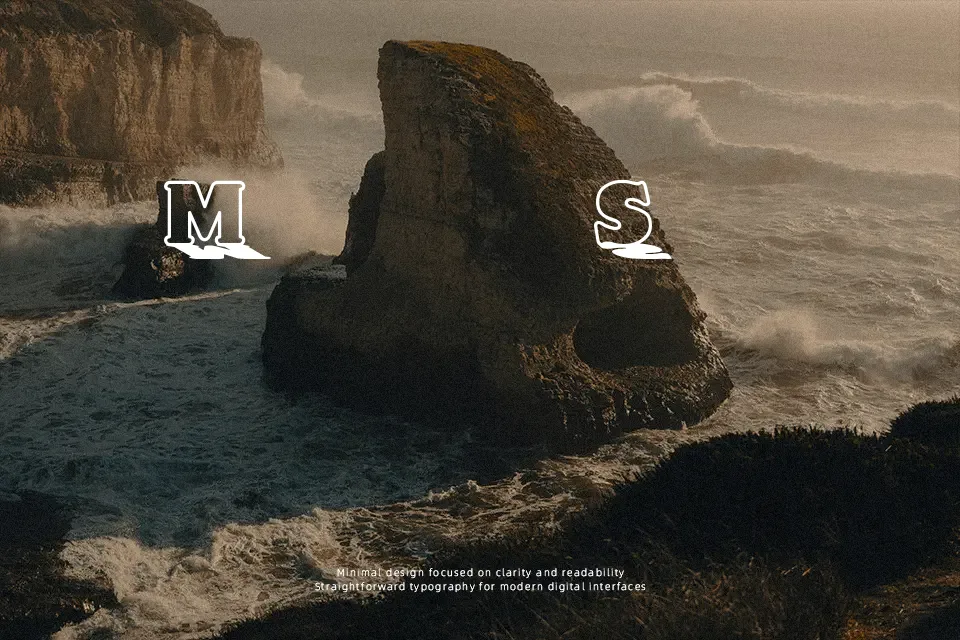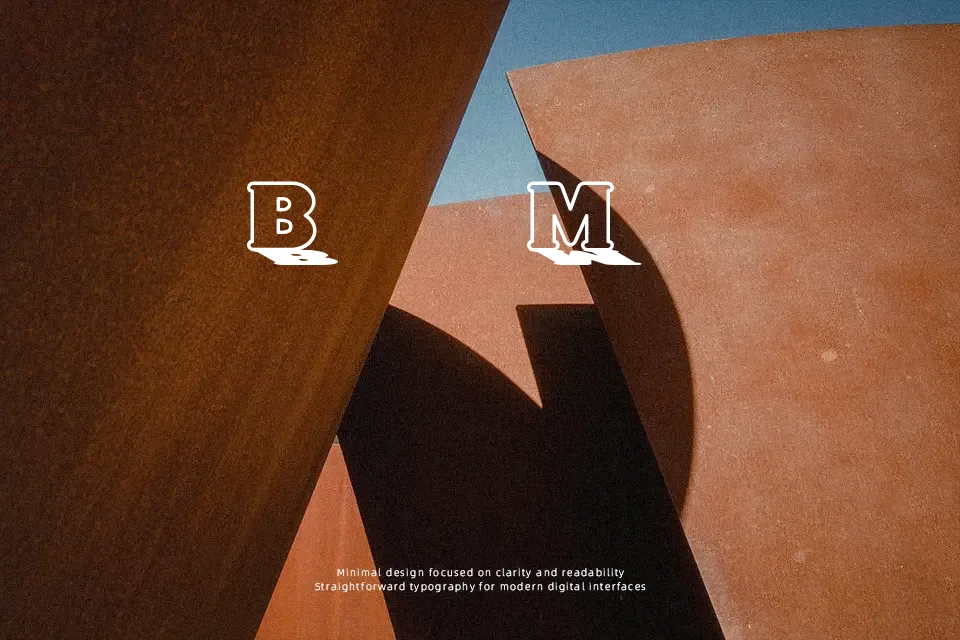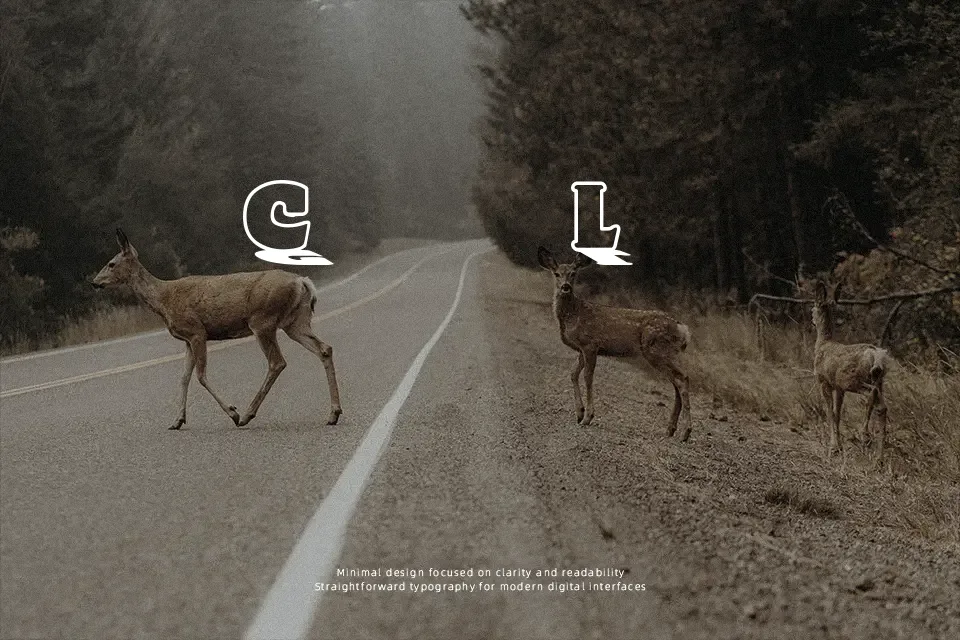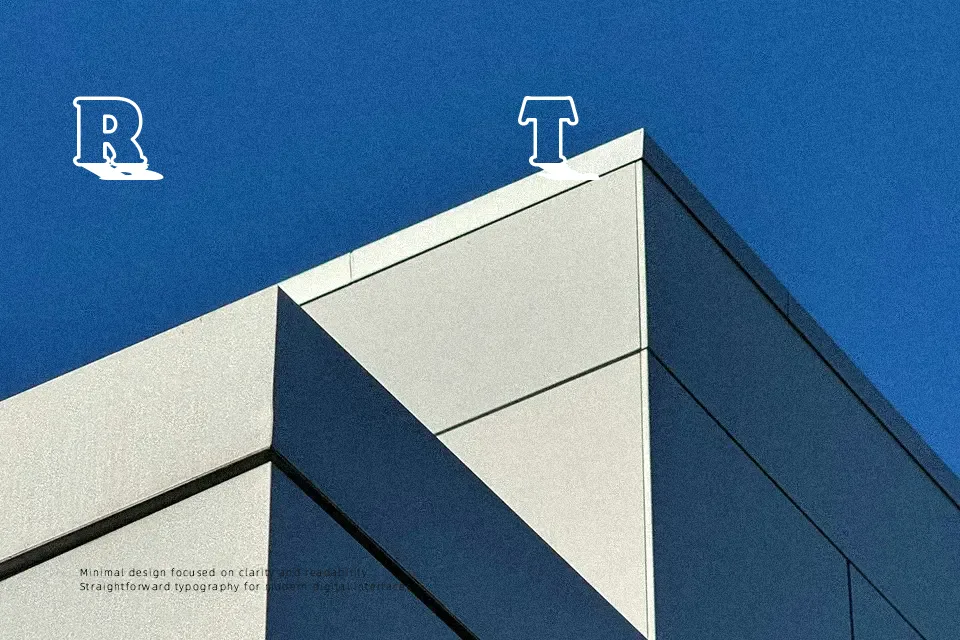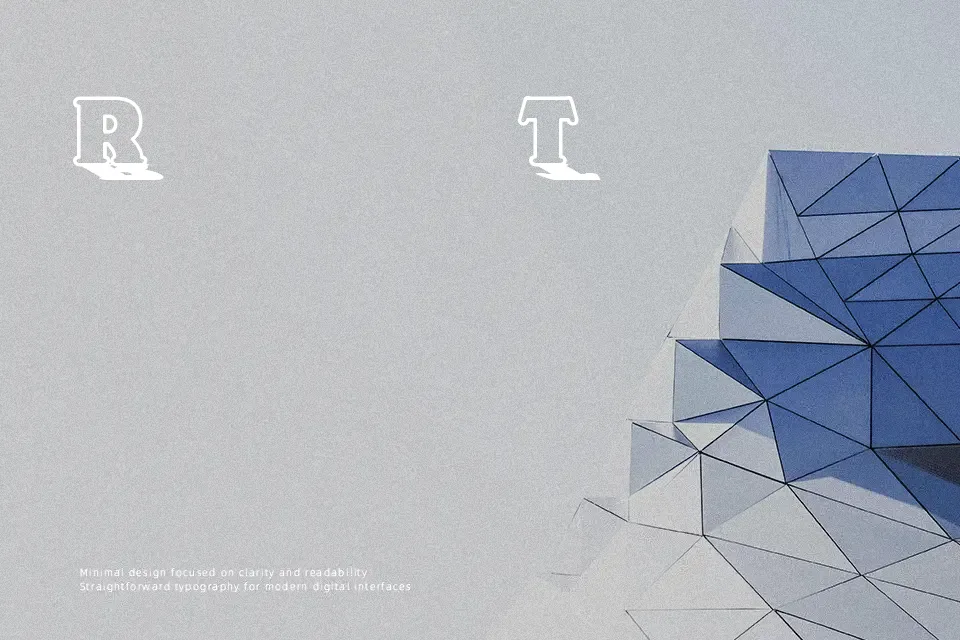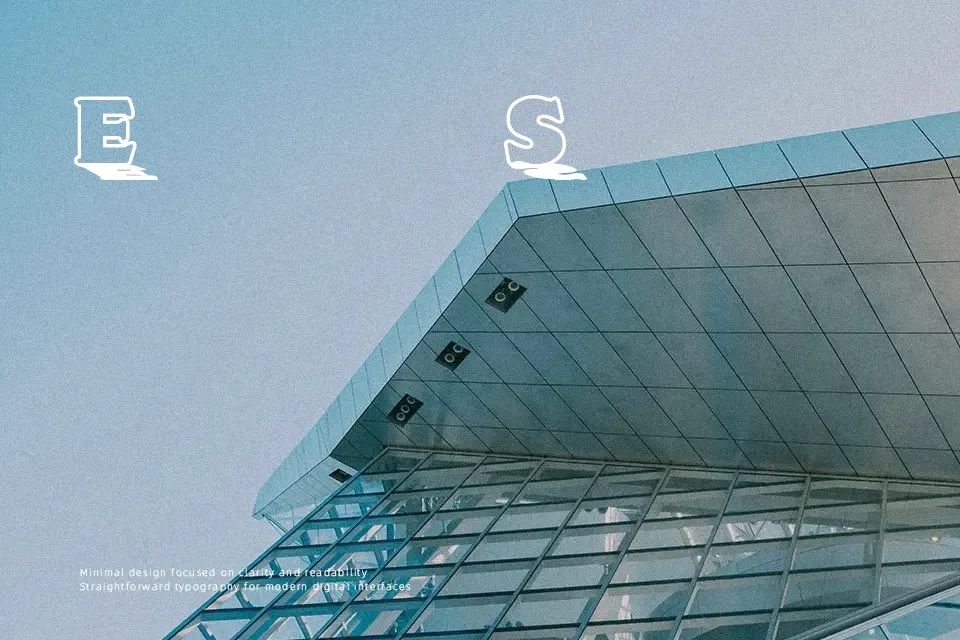
Toyland Font
Designed by Nick's Fonts
Toyland Font performs most effectively when deployed at prominent display sizes that allow its dense silhouette and intricate shadow geometry to breathe. The letterforms combine exceptionally hefty stroke weights with consistent external outlines and deep diagonal cast shadows, producing a pronounced three-dimensional relief. Moderate internal proportions and tight character spacing keep words visually cohesive across brief headlines, though the sheer mass of the strokes naturally diminishes legibility at reduced scales. Consequently, the typeface thrives in short amusement park signs, retro arcade posters, and novelty product covers, whereas dense editorial blocks quickly become illegible due to overwhelming visual weight.
Best For: vintage toy packaging, retro arcade event posters, amusement park signage, novelty merchandise headlines
Not Ideal For: continuous body paragraphs, mobile interface labels, corporate annual reports, dense tabular data